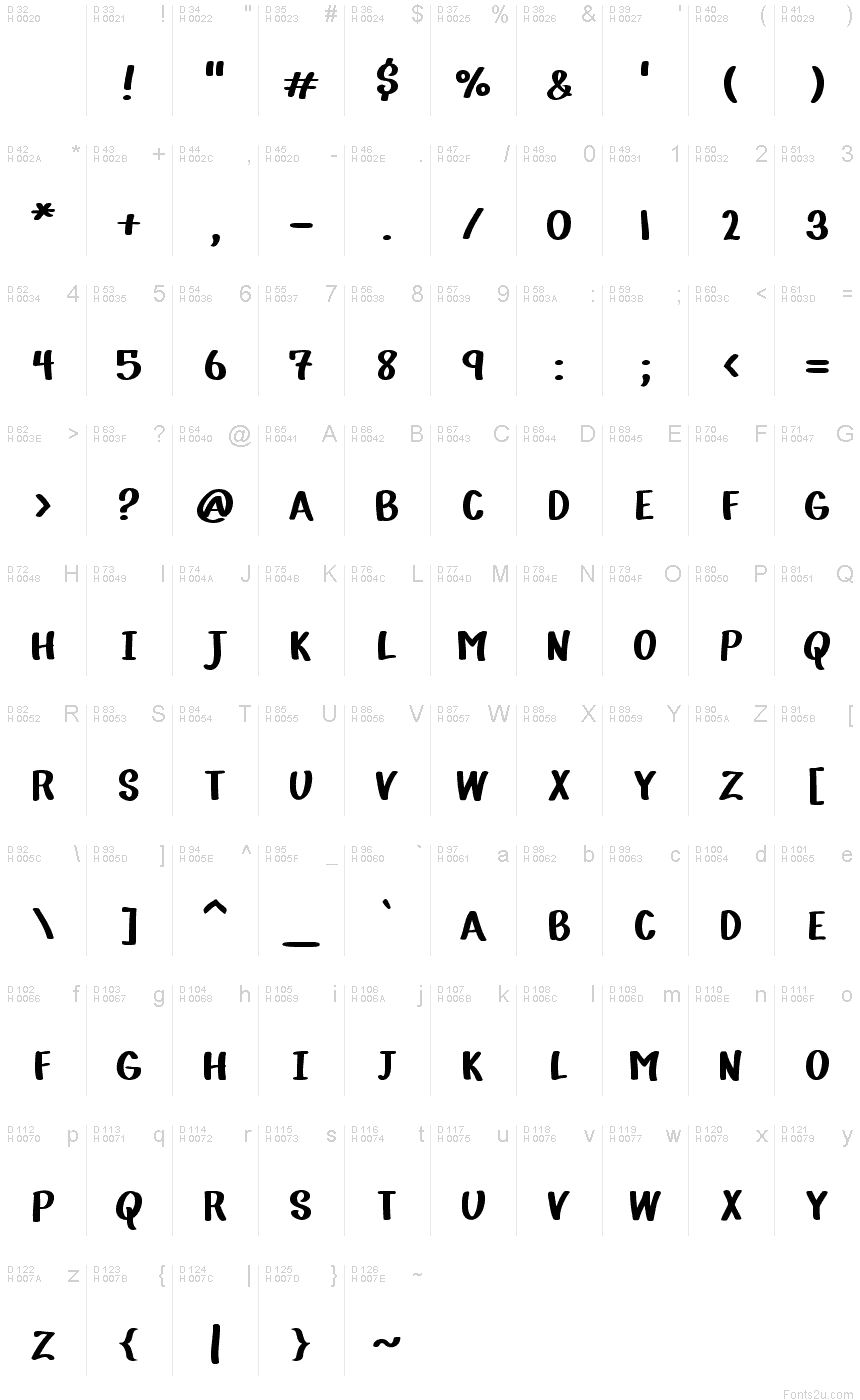
VTC Komika Hand One, designed by WolfBainx - Larry E. Yerkes, is a free comic display font with chunky, hand-drawn capitals. The uneven strokes swell and taper like lettering drawn quickly with a broad marker. Soft corners and slightly irregular widths keep the shapes lively rather than mechanical.
Illustrated characters and speech bubbles share its loose, inked construction. That makes it useful for comic publishing, children's packaging, and event posters. Comic covers are its strongest setting, since the broad letters can become part of the drawn scene instead of serving as neutral type.